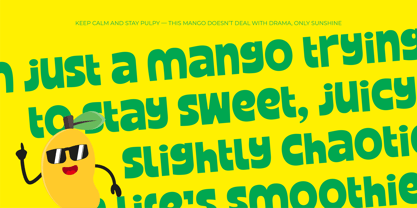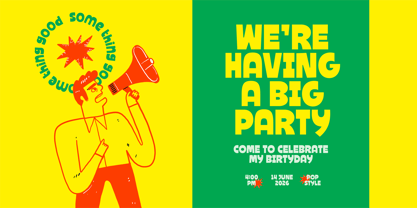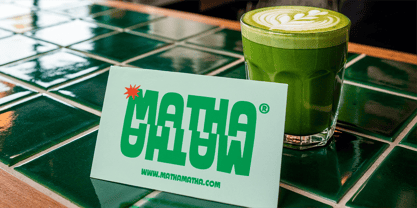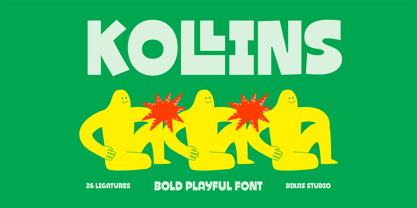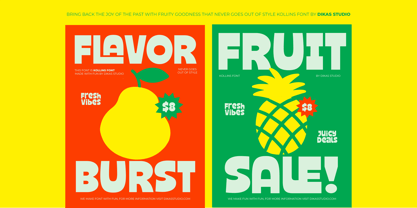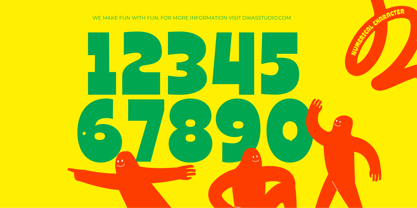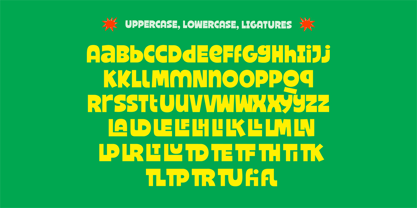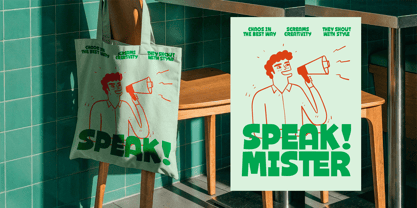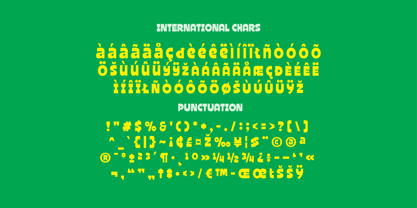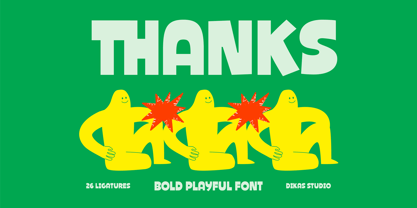
Kollins
by Dikas Studio
The Kollins Font Family was designed by Andika Setiawan and published by Dikas Studio. Kollins contains 2 styles and family package options. More about this family
Kollins is a bold, hand-drawn sans serif font designed to bring energy, personality, and fun into any project. Its chunky shapes and playful rhythm make every word feel alive, while the unique alternate characters add expressive variation for eye-catching typography. Perfect for logotypes, posters, headlines, children’s designs, and any project that needs standout lettering, Kollins delivers a joyful handcrafted charm.